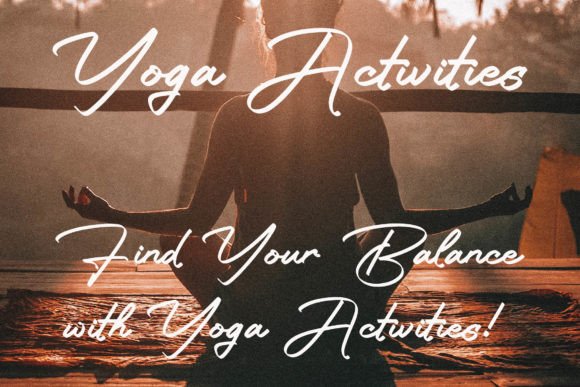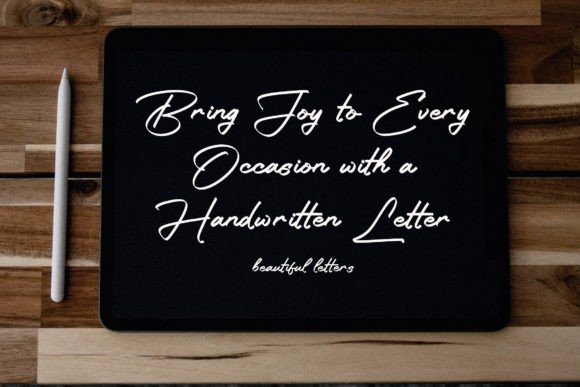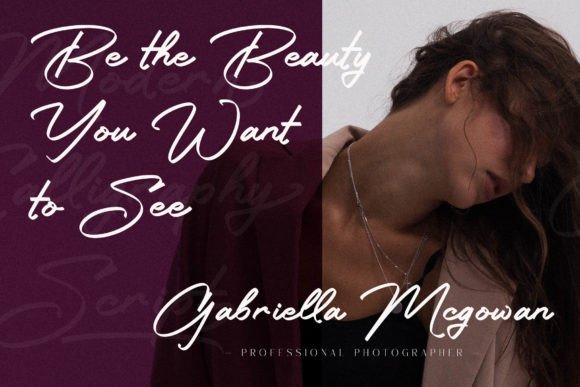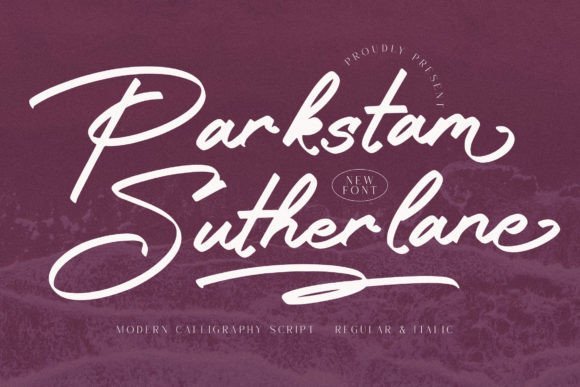
Introduction to Parkstam Sutherlane Font
Parkstam Sutherlane – Modern Calligraphy Script suitable for any projects such as logos, branding projects, homeware designs, product packaging, mugs, quotes, posters, shopping bags, t-shirts, book covers, name cards, invitation cards, greeting cards, labels, photography, watermark, special events, and all your other lovely projects that need a beautiful script taste.
Key Features of Parkstam Sutherlane Font
Why Choose Parkstam Sutherlane Font?
Parkstam Sutherlane Font offers exceptional quality and versatility, making it a valuable addition to your design toolkit. Whether you’re creating for personal projects or commercial use, Parkstam Sutherlane Font delivers professional results.